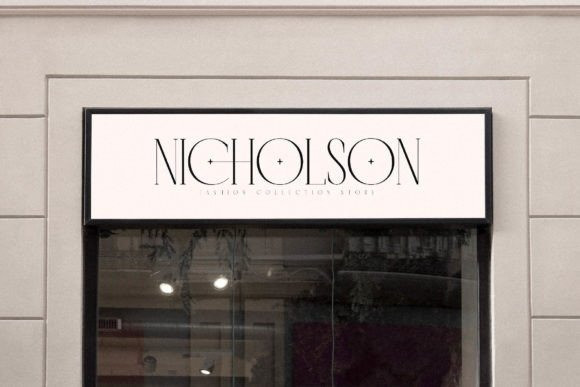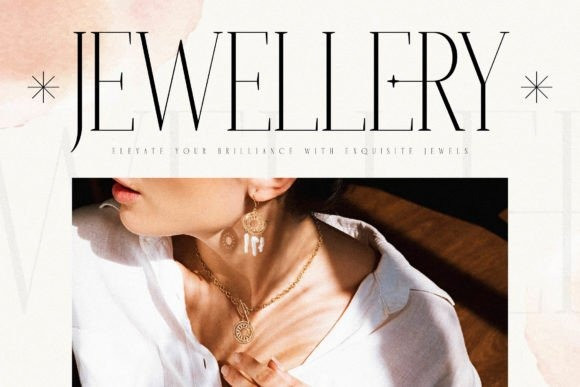
Horence Font
Horence Font is a modern and classic serif typeface. It is perfect for an elegant & luxurious logo, book or movie title design, fashion brand, magazine, clothes, lettering, quotes, and so much more.